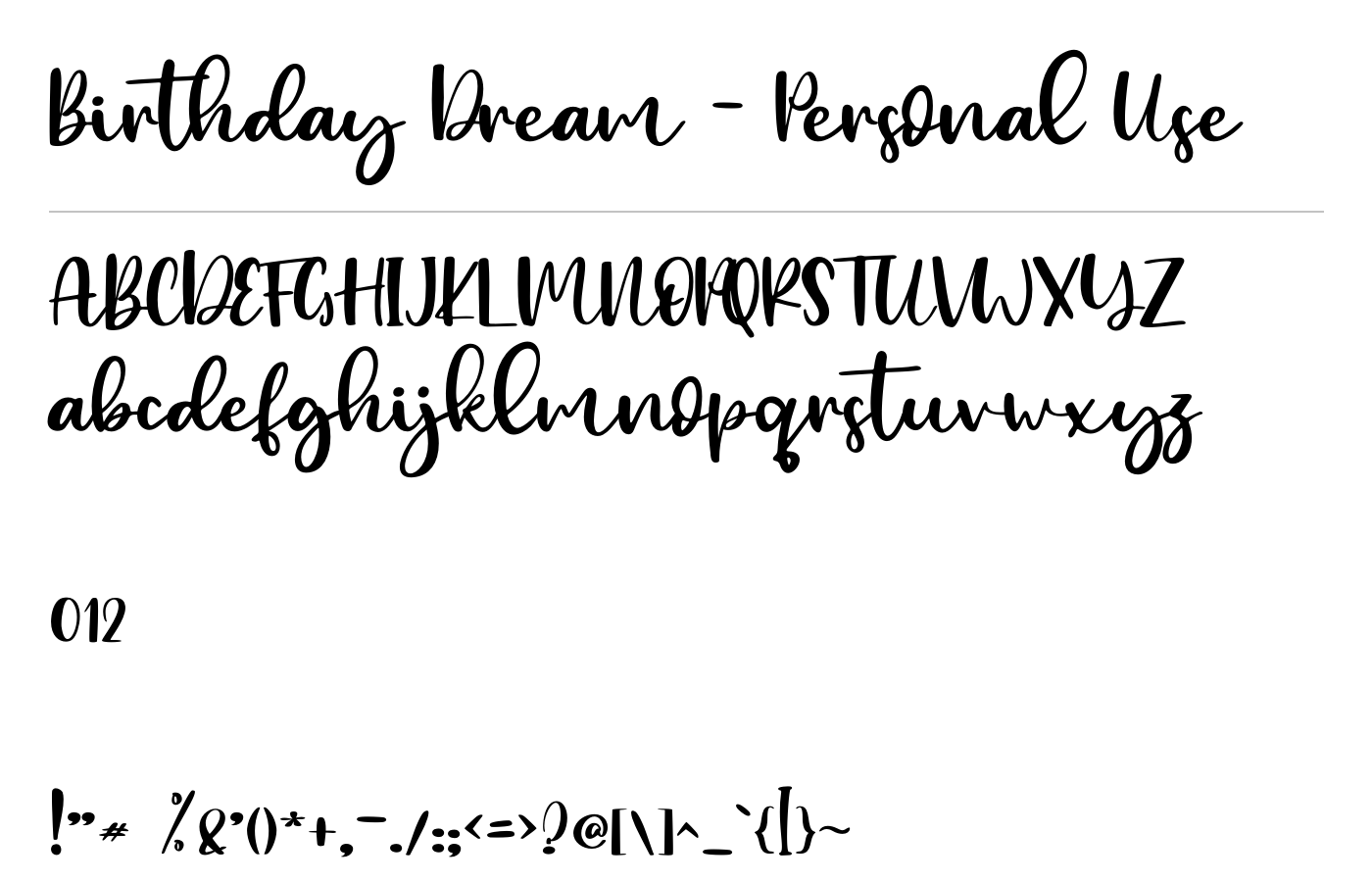
Birthday Dream is a playful and modern script font with a casual, hand-lettered feel. Its smooth, flowing strokes and varying letter heights give it a lively, personal touch perfect for invitations, greeting cards, and branding that wants to convey warmth and creativity. This font works beautifully for projects that need a friendly and approachable style with a touch of elegance.
Birthday Dream - Personal Use Font
About Birthday Dream - Personal Use Font
| Font family | Birthday Dream - Personal Use Font |
| Designer | Sarwo Edhi Prayitno |